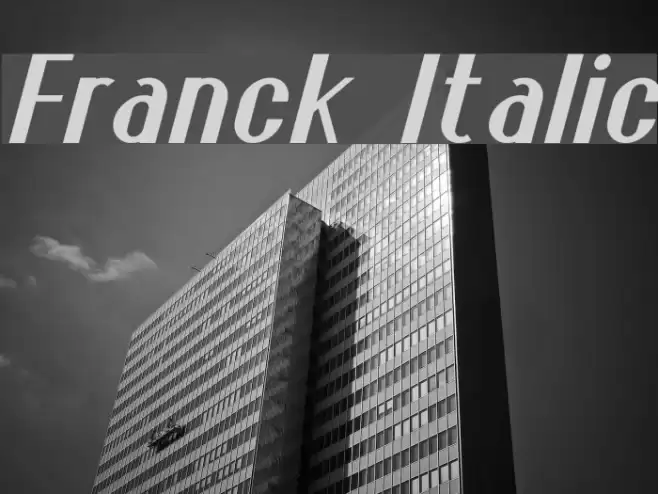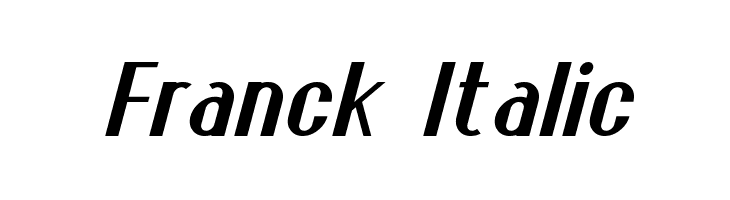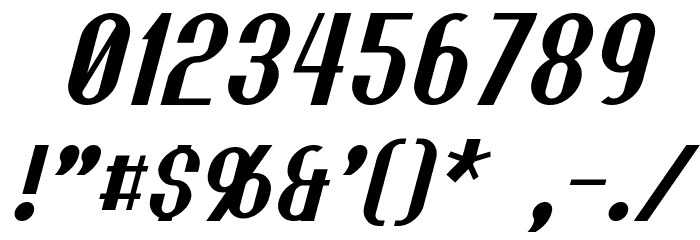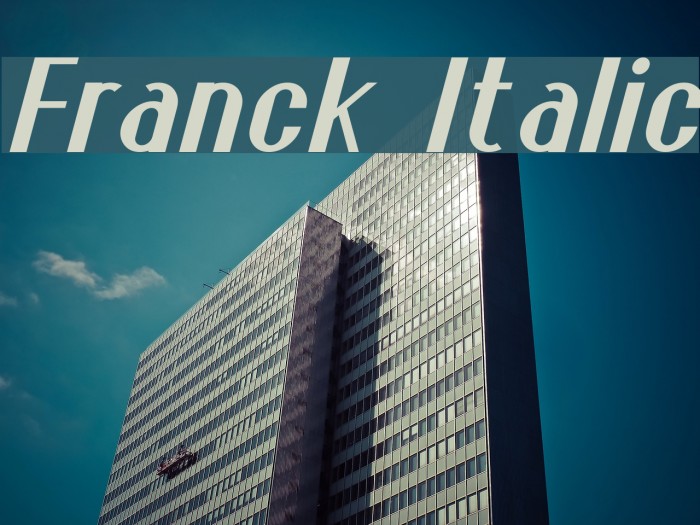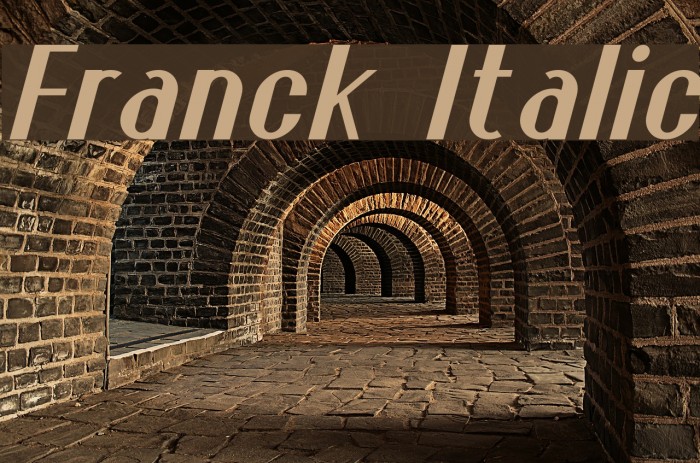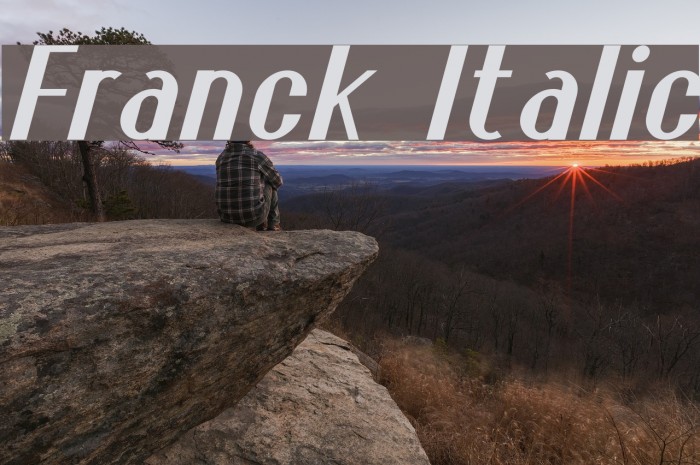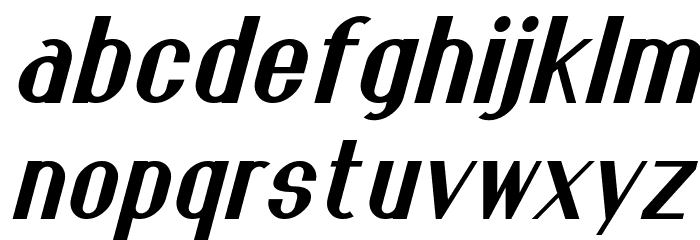
Franck Italic Font
Franck Italic Description
This font features an elegant italic style with a modern twist, characterized by its sleek and slightly condensed letterforms. The uppercase letters exhibit a dynamic slant, giving a sense of motion and sophistication. The lowercase letters maintain a consistent style, complementing the uppercase with their smooth curves and clean lines. Numbers are designed with a similar slant, ensuring uniformity across all characters. The special characters are crafted to match the overall aesthetic, providing a cohesive look. This font's design is both stylish and versatile, making it suitable for a variety of applications.
A modern, italic font with sleek, condensed letterforms and a dynamic slant from Uncategorized fonts.
- Proposed Projects: Ideal for branding, editorial design, fashion magazines, and elegant invitations.
- Use Case: Headlines, Logos, Editorial design